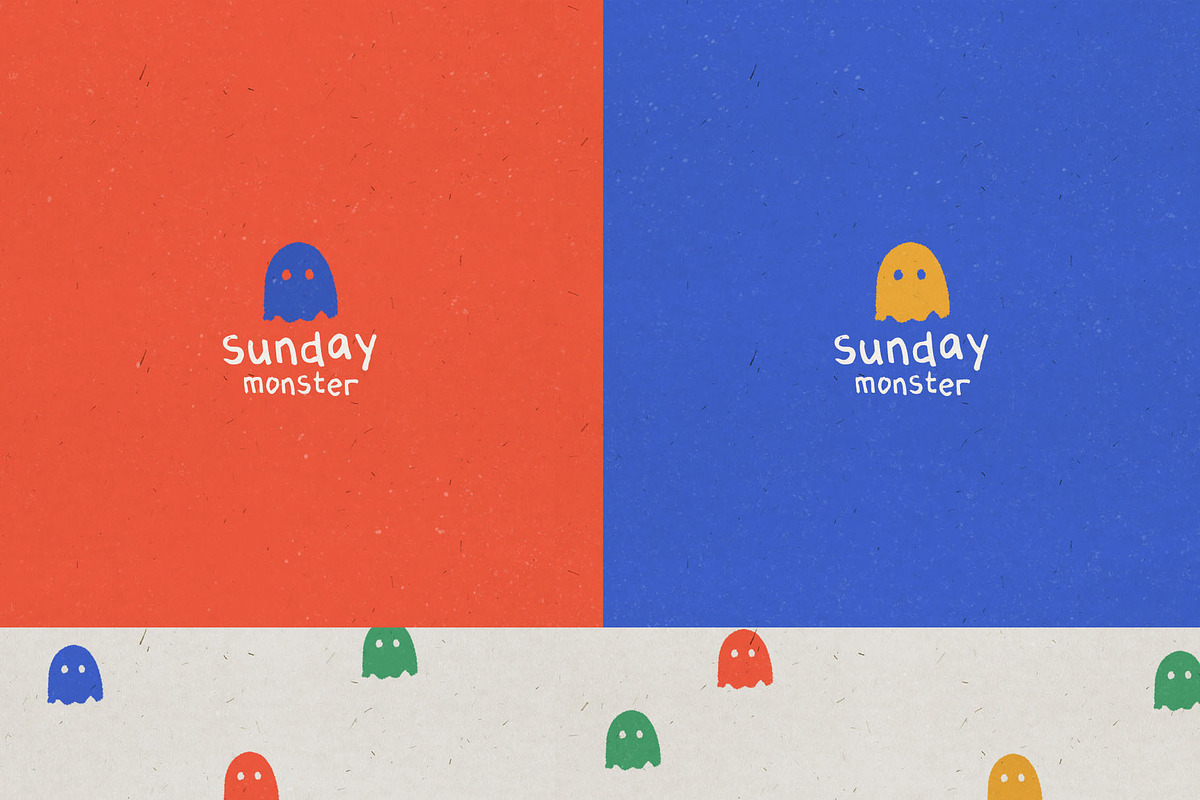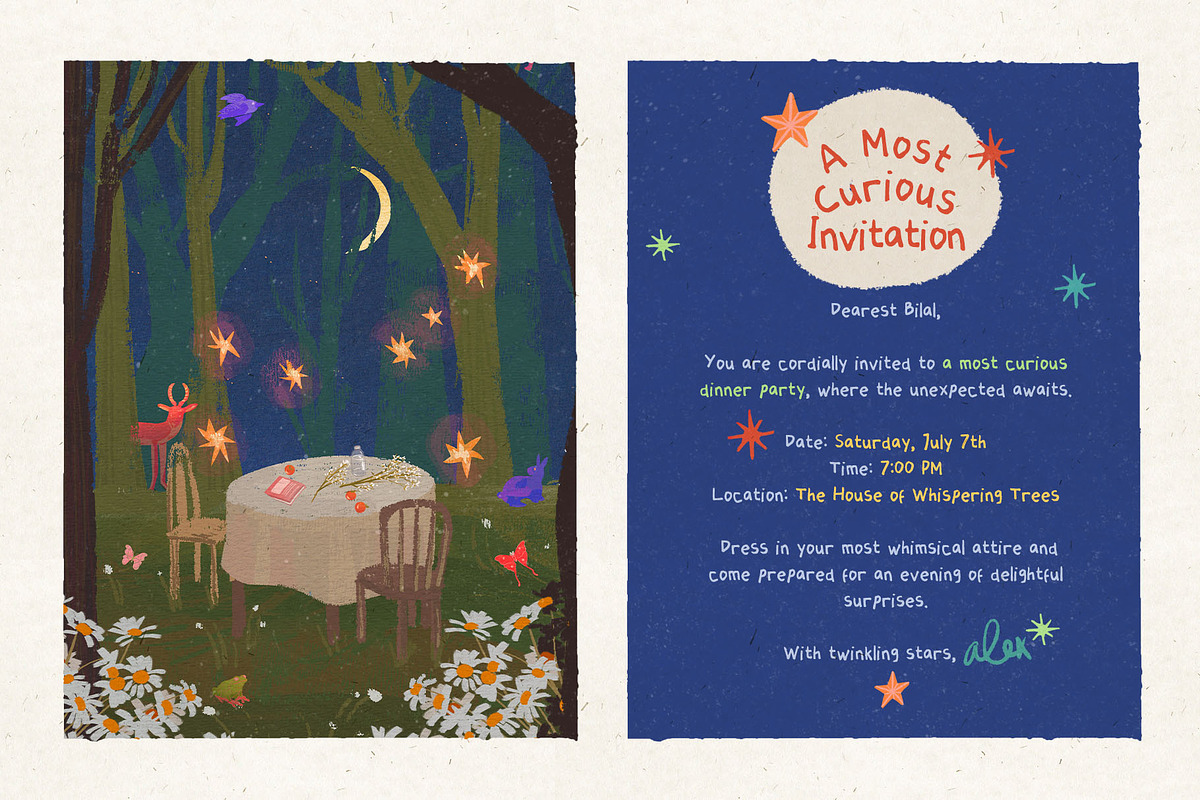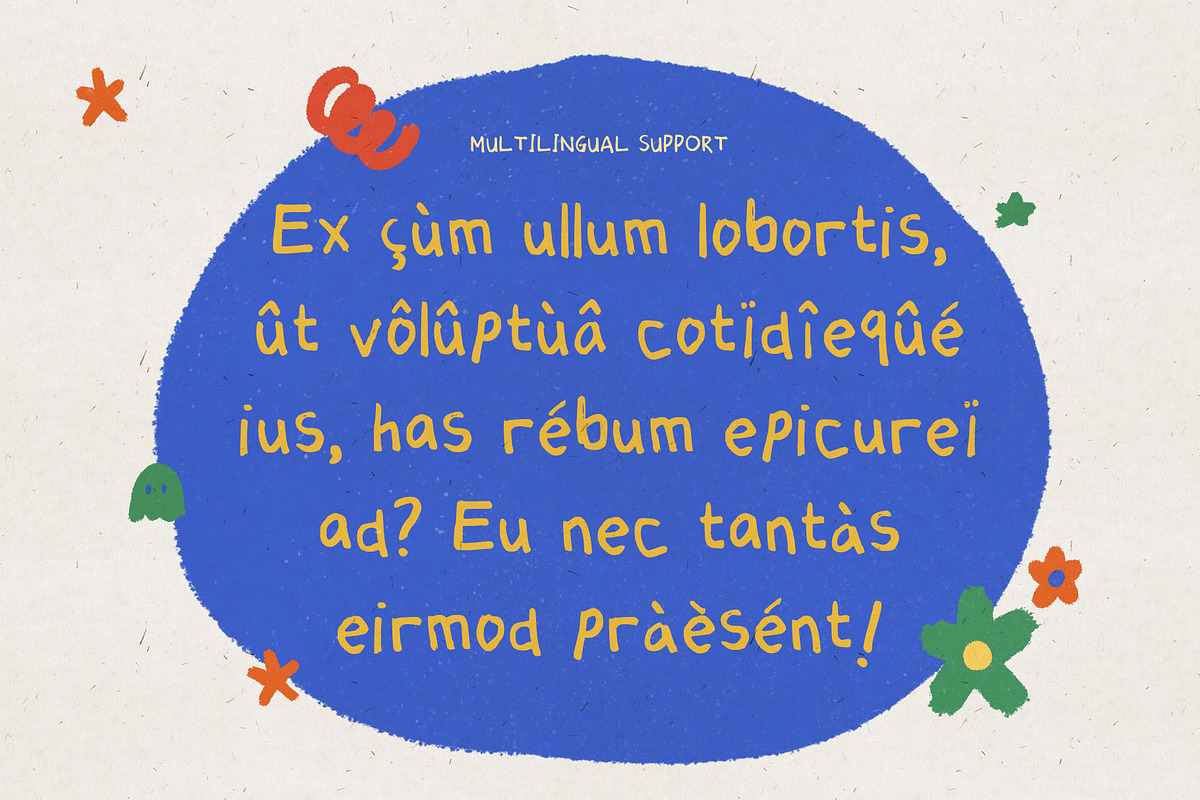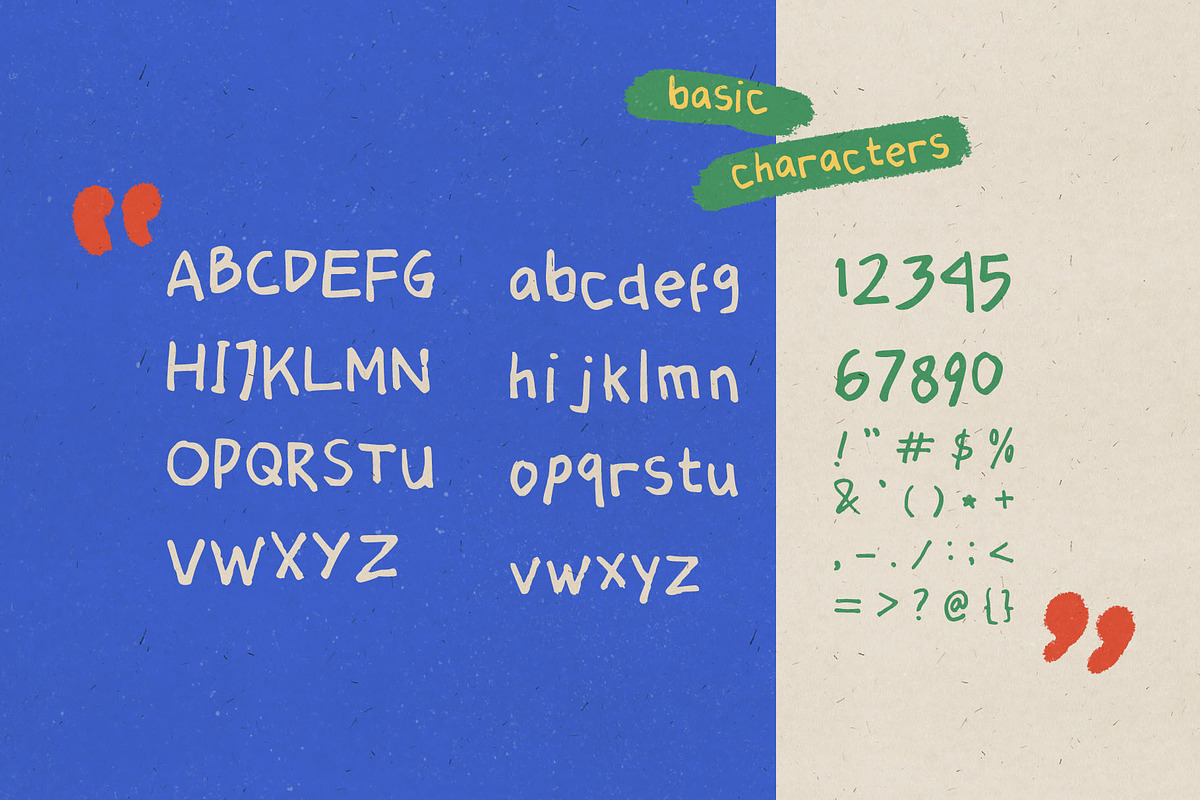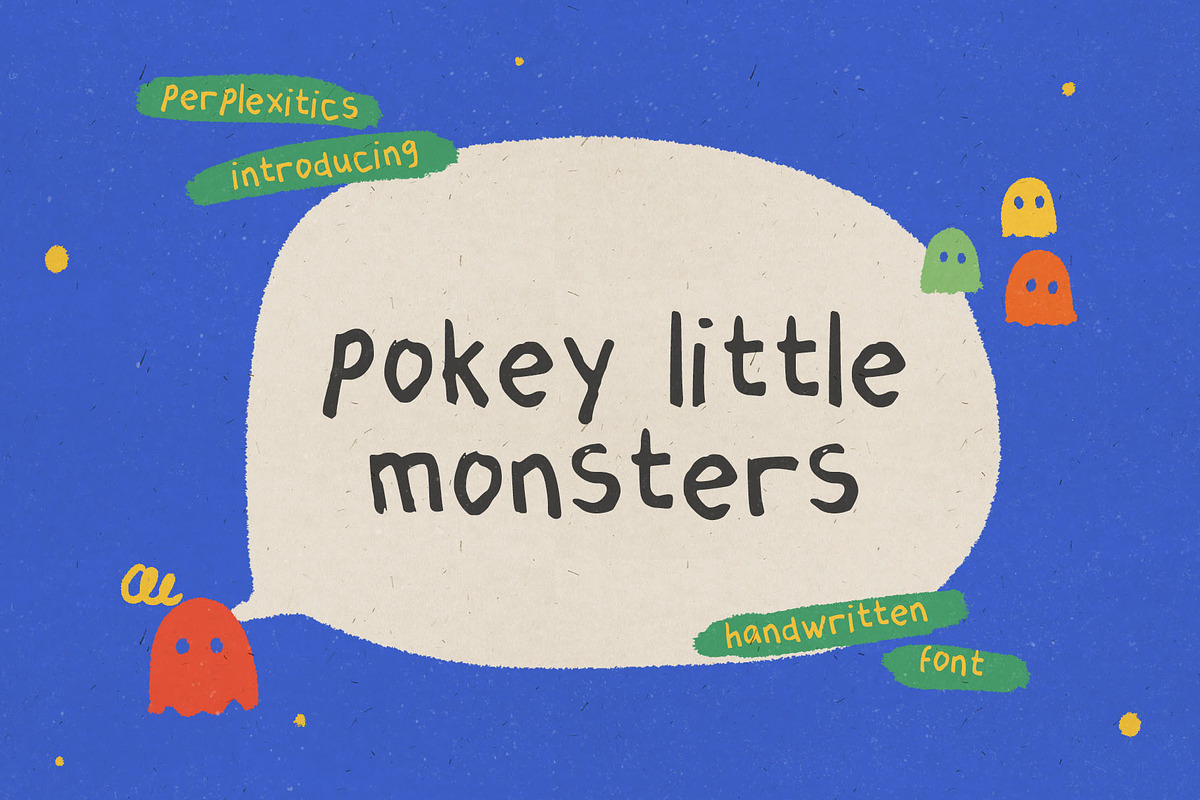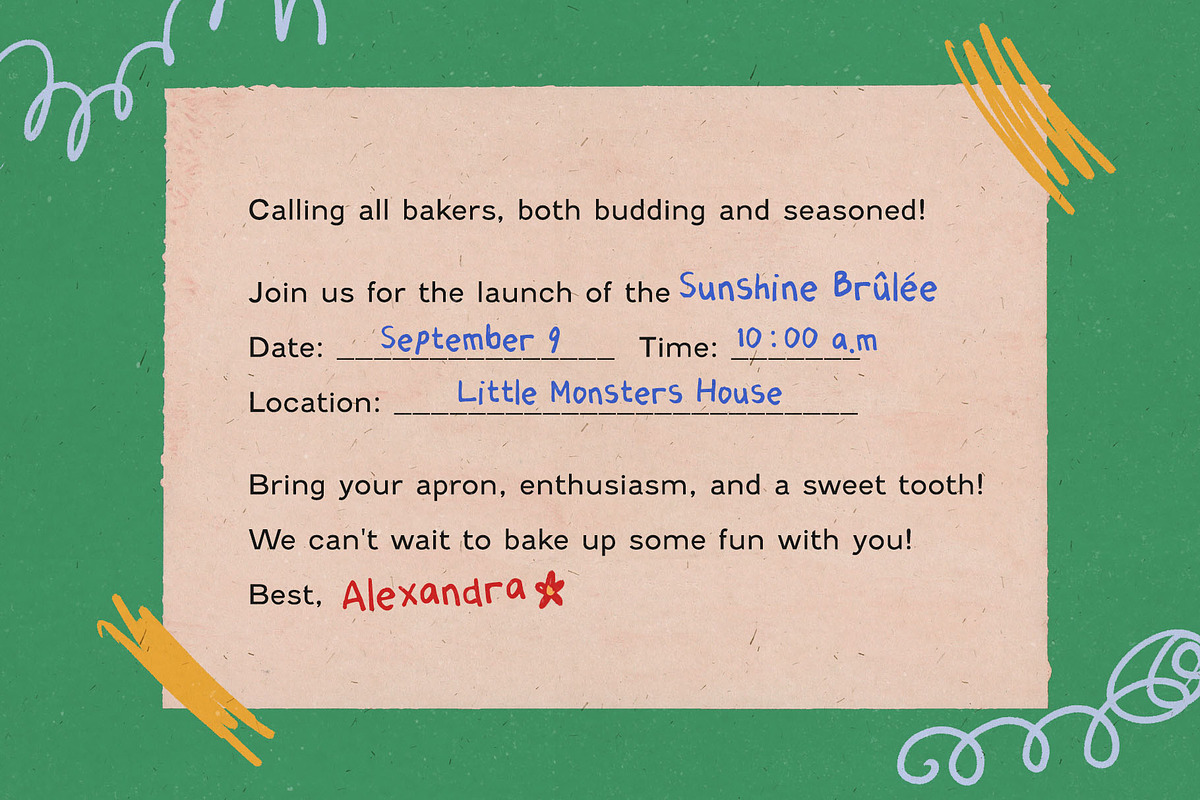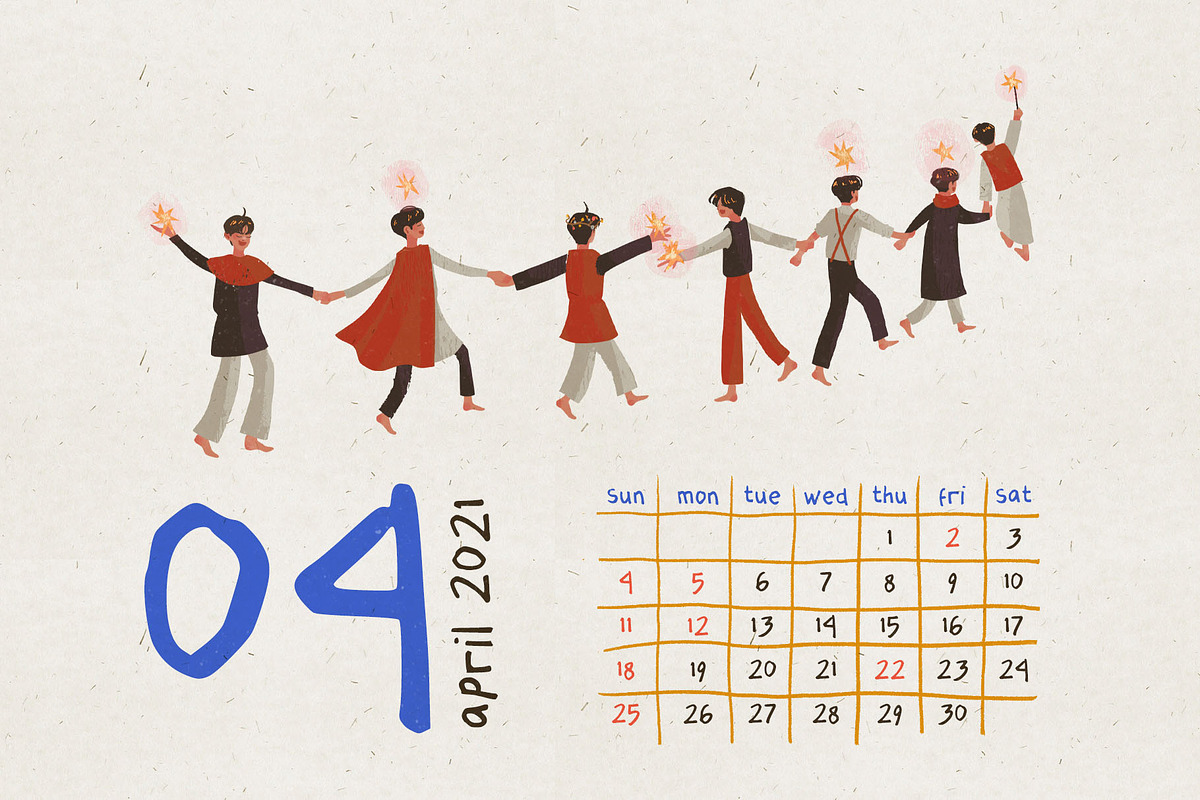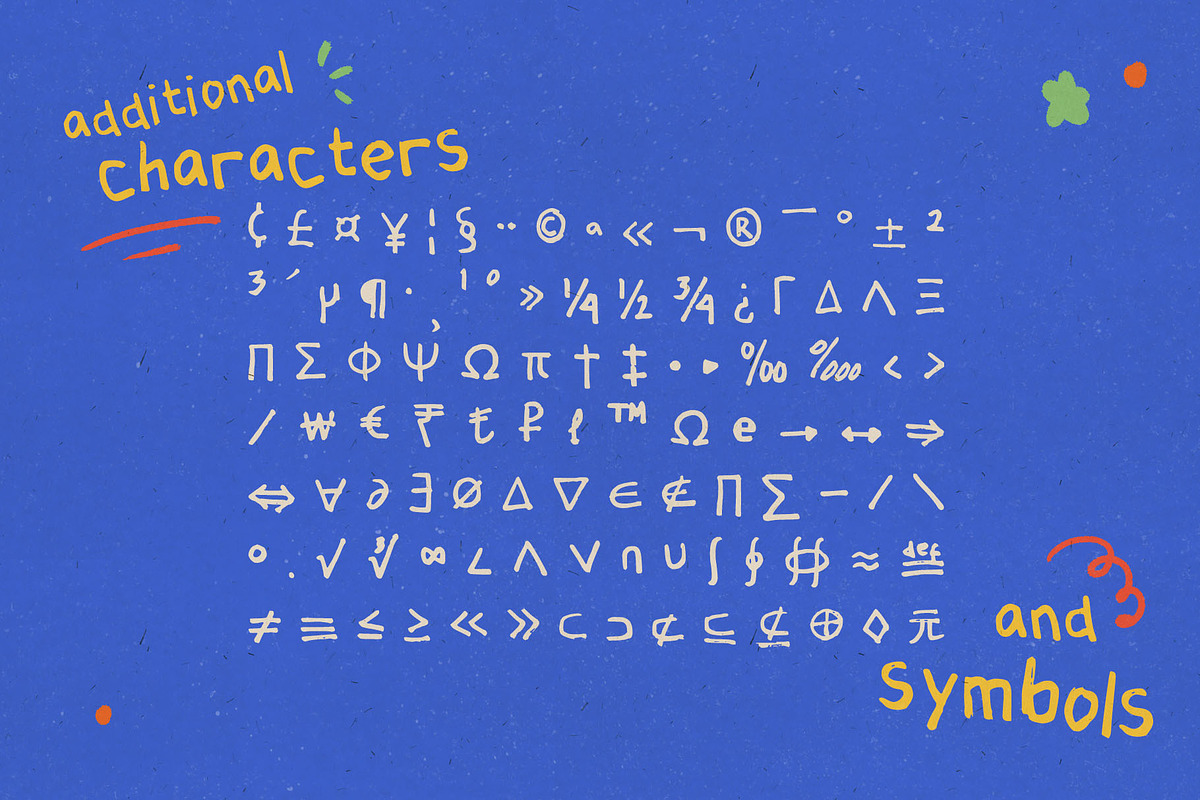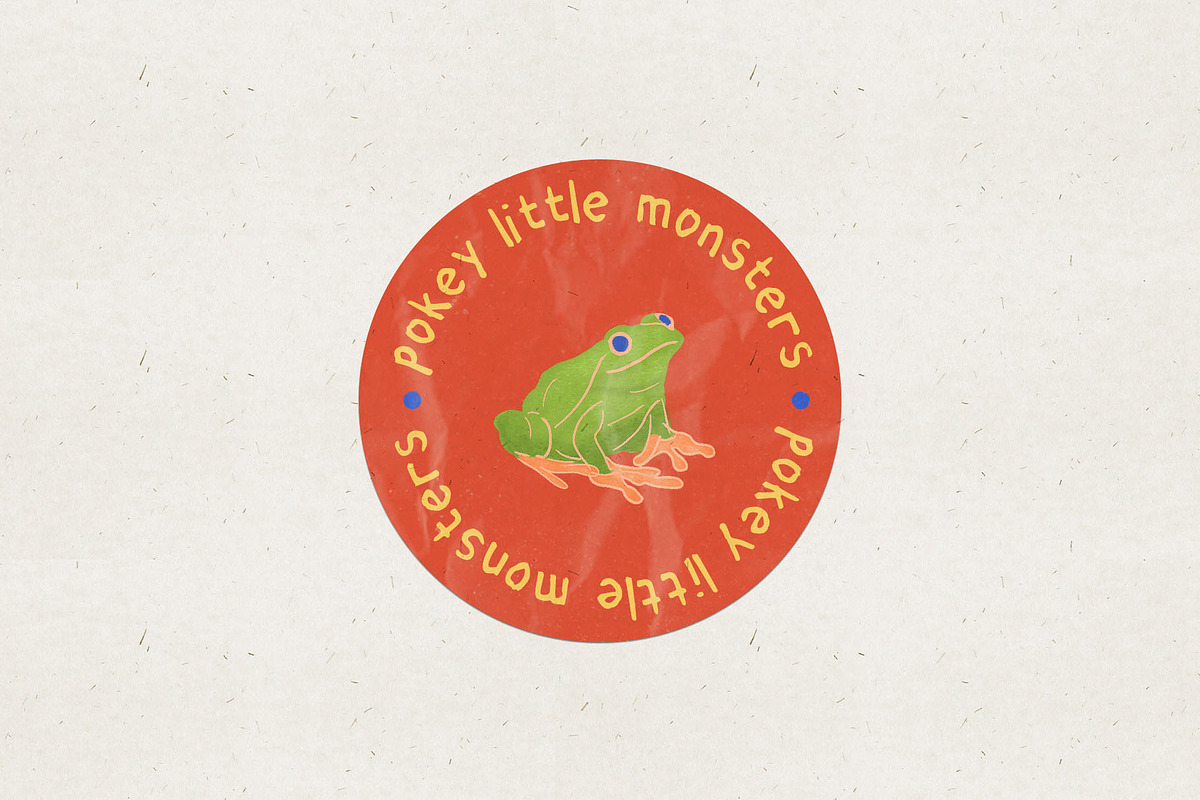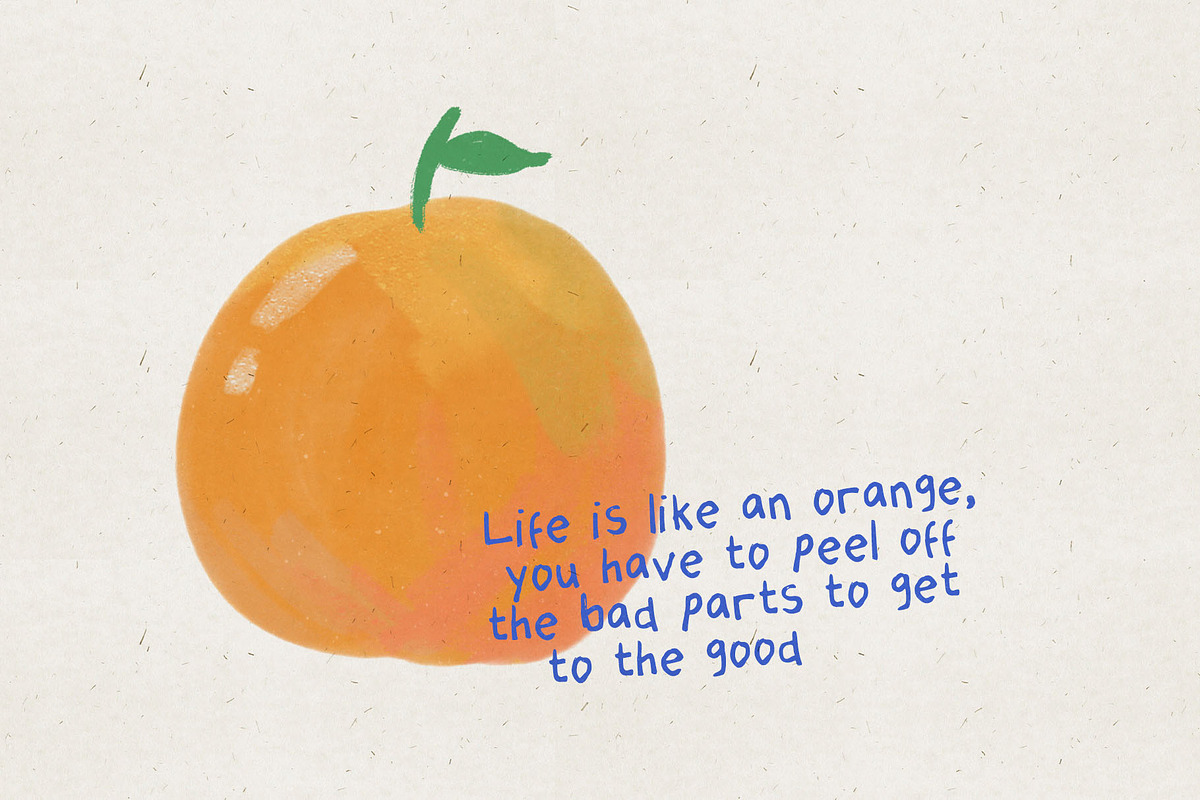
Pokey Little Monsters Handwritten
Pokey Little Monsters is a playful marker font that captures the spirit of your extrovert friend. Inspired by handwritten lettering with a slightly wobbly feel, it evokes the joy of a child's artwork.
Pokey Little Monsters Font is packed with everything you need, including uppercase and lowercase letters, numbers, and punctuation. Multilingual support.